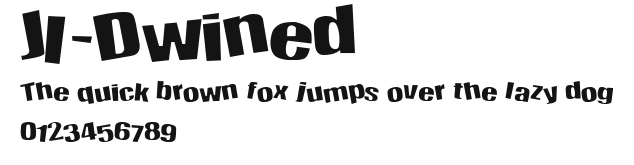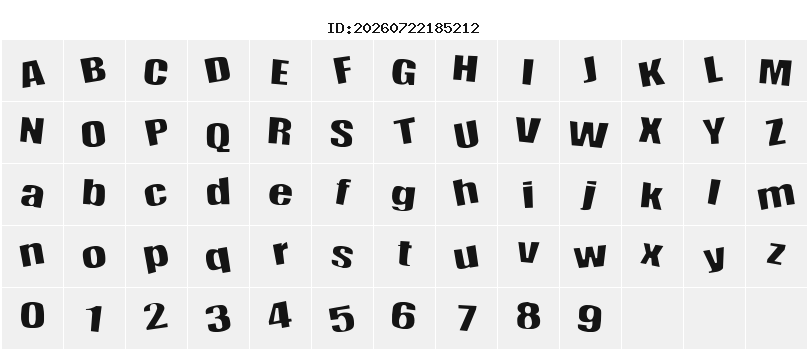
• Font Name: JI-Dwined
• Full Font Name: JI-Dwined
• Designer: JupiterImages
About JI-Dwined.ttf
JI-Dwined.ttf is a modern, elegant sans-serif font designed for ultimate readability and visual harmony. Perfect for branding, headlines, web design, and print materials.